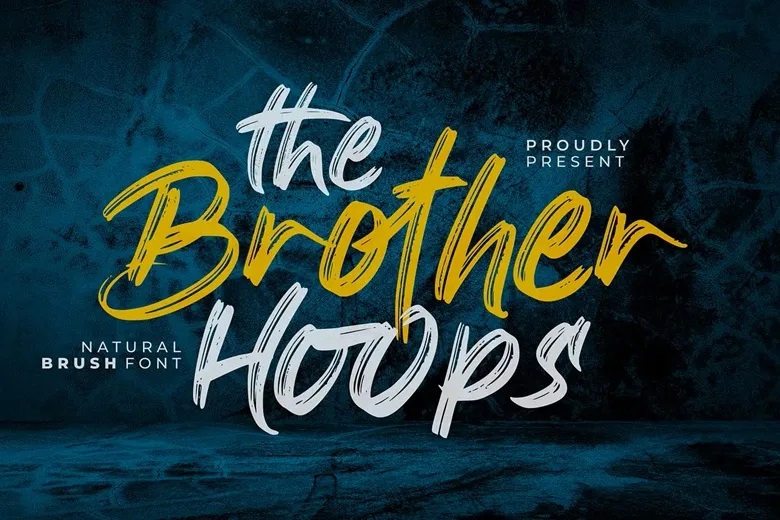
The Brother Hoops Font
The Brother Hoops is a bold, hand drawn brush script font with a combination of beautiful curves and a new urban city feel; brining a trendy brush font that will definitely bring an urban-chic feel to your logo designs, brand visuals, handwritten quotes, products packaging and merchandising, social media post, or by making it your font on the web cyber space.
The Brother Hoops Brush Script Font